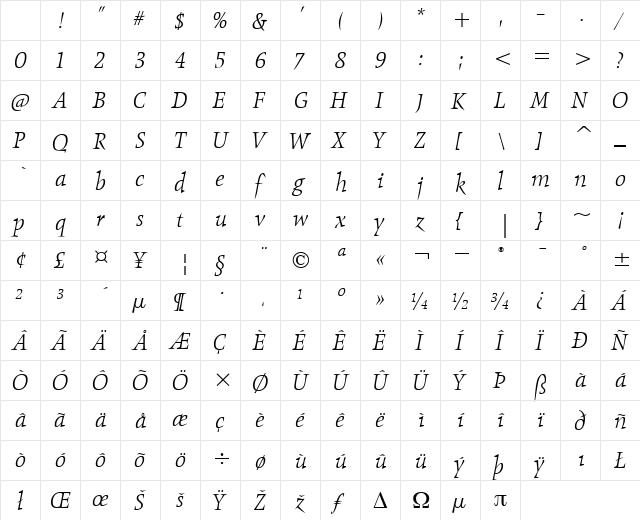
ObeliskITC TT is a composed and adaptable typeface that performs quietly and consistently across a wide range of design contexts. The slanted form adds forward momentum and visual energy. Its slender proportions lend an understated elegance to any composition.